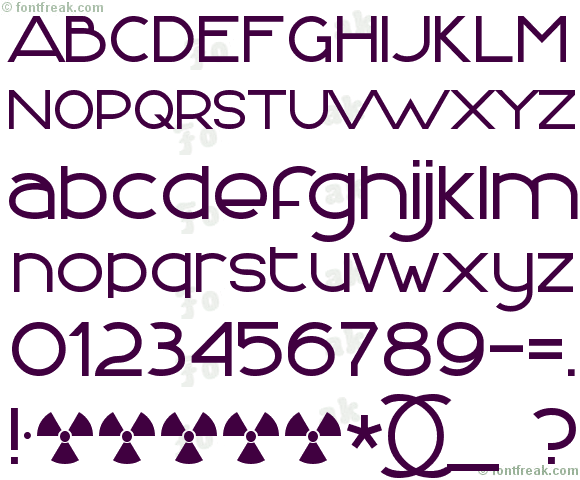
FontLogic Normal
FontLogic by Typearound Fonts is a striking sans-serif typeface that expertly blends modern aesthetics with logical structure. This font features a balanced stroke weight and a clean, minimalistic design, making it highly versatile for a variety of applications. The characters showcase a harmonious contrast, allowing for easy readability while maintaining a contemporary look. The spacing is thoughtfully executed, providing a sense of cohesion that elevates any text it adorns.
FontLogic is an excellent choice for a variety of use cases. It works beautifully in digital and print media, making it ideal for website headers, business cards, and branding materials. Its clarity and charm also make it suitable for restaurant menus, where legibility is essential without compromising style. Additionally, the FontLogic font can add a unique touch to event invitations, such as corporate gatherings or casual meetups, ensuring your message is communicated effectively. Small business owners and graphic designers will find this font particularly appealing, as it offers a professional yet approachable vibe.
The target audience for FontLogic includes graphic designers, small business owners, content creators, and anyone looking to add a modern flair to their projects. Its versatility makes it a go-to choice for those seeking a typeface that can adapt to various themes while maintaining an air of sophistication.
What truly sets FontLogic apart is its ability to provide a logical yet aesthetically pleasing option for typography. The balance between form and function ensures that it not only looks good but also serves its purpose effectively. With a FontLogic font free download available, you can easily incorporate this exceptional typeface into your design toolkit and elevate your visual communication.